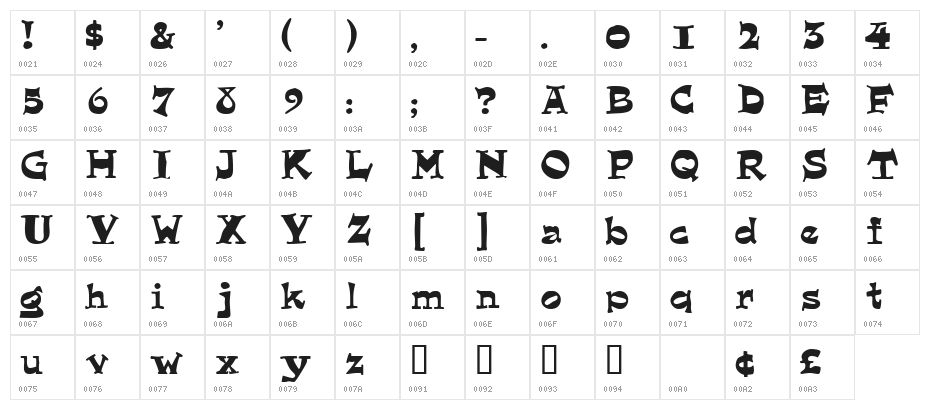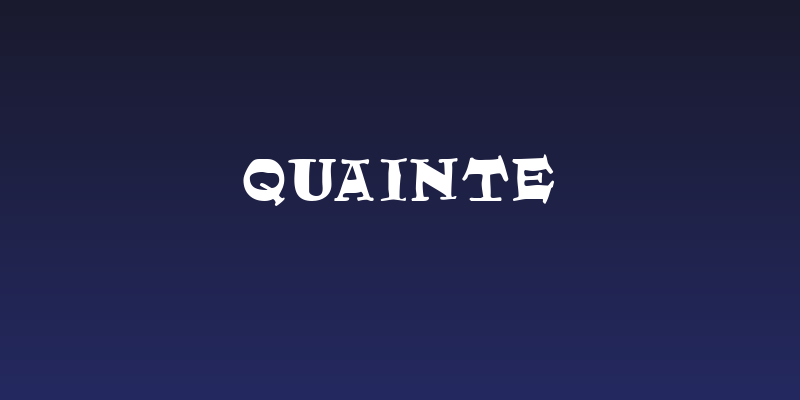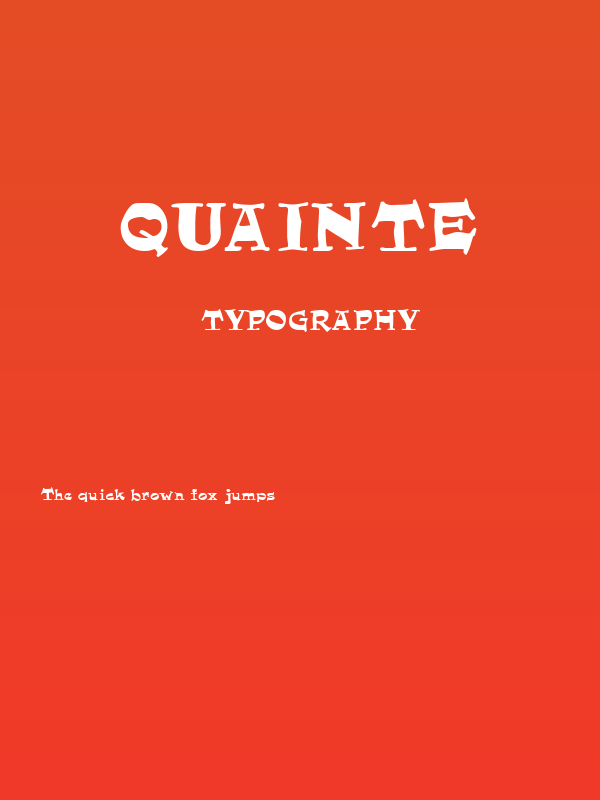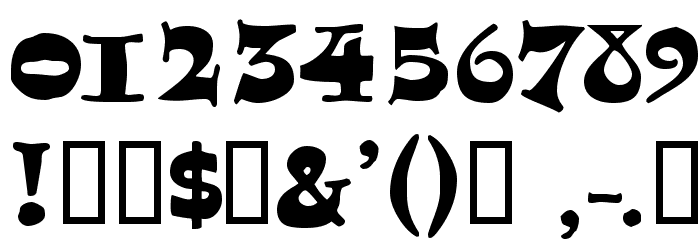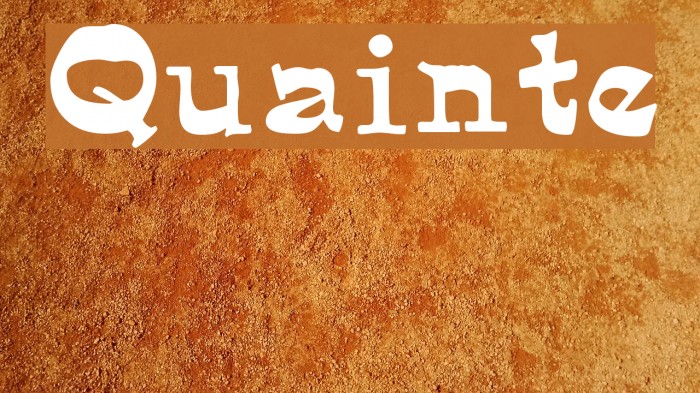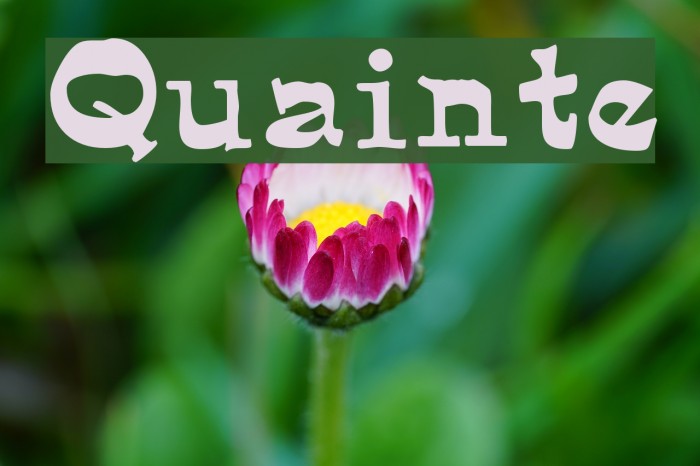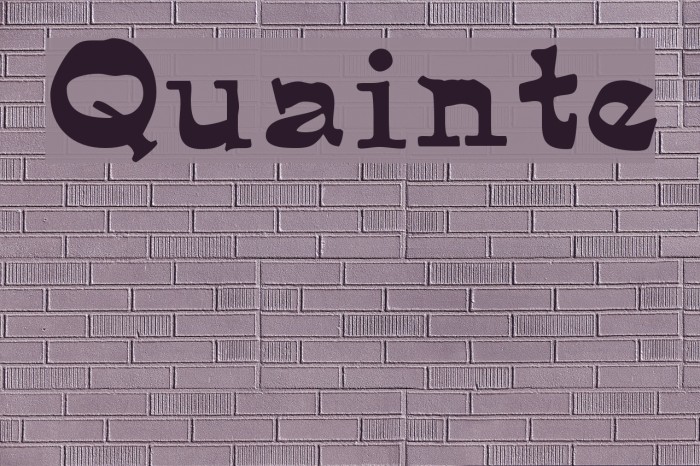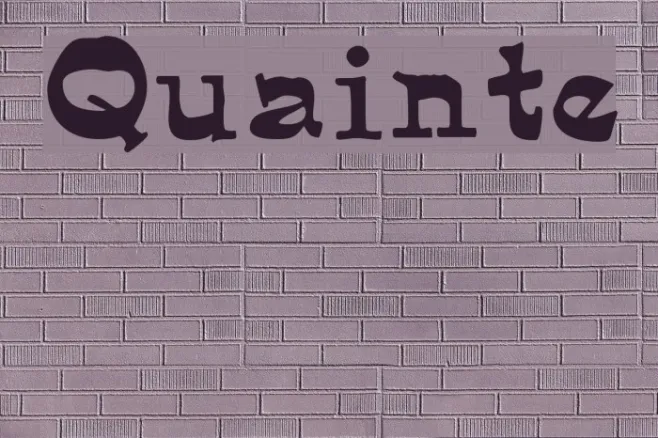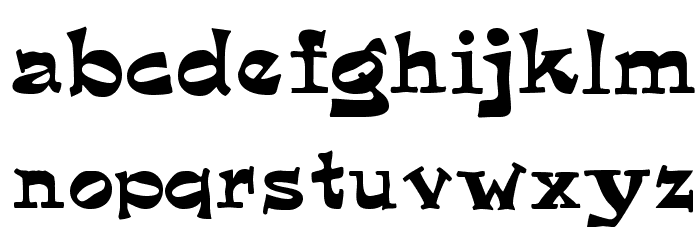
Quainte Font
Quainte Description
This font features a bold and playful style with a hand-drawn appearance. The characters have a whimsical, uneven quality, with varying stroke thickness that adds to its charm. The uppercase letters are bold and slightly irregular, while the lowercase letters maintain a consistent playful style. Numbers and special characters follow the same quirky design, making the font suitable for creative and informal projects. The overall look is reminiscent of a vintage or retro aesthetic, with a touch of modern flair.
| Overall Style | Vintage, Decorative |
| Proposed Projects | Ideal for children's books, playful branding, posters, and creative invitations. |